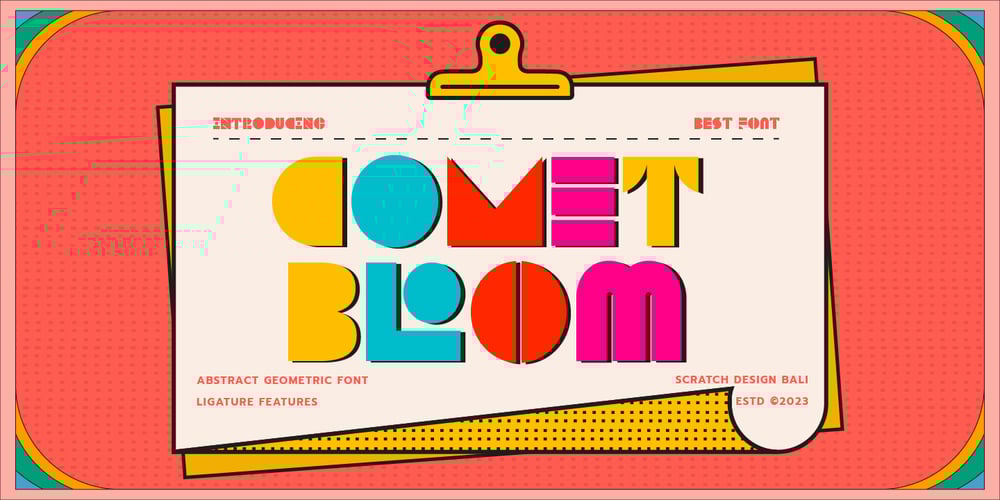
Comet Bloom Font Family was designed by Gitayogi Irhandi and published by Scratch Design. Comet Bloom contains 1 styles and family package options. Comet Bloom is an abstract geometric font that has a unique style, modern but has nostalgic vibes. It is a carefully crafted design that combines modern style with retro style to make the font more aesthetic. This font will be suitable for logo design, packaging, eye-catching headlines, branding, urban and retro style design, game and movie posters, and other dynamic designs.What you’ll get: Uppercase and lowercase Numbers & punctuation Multilingual support Unique Kernings Hope you enjoy our font!